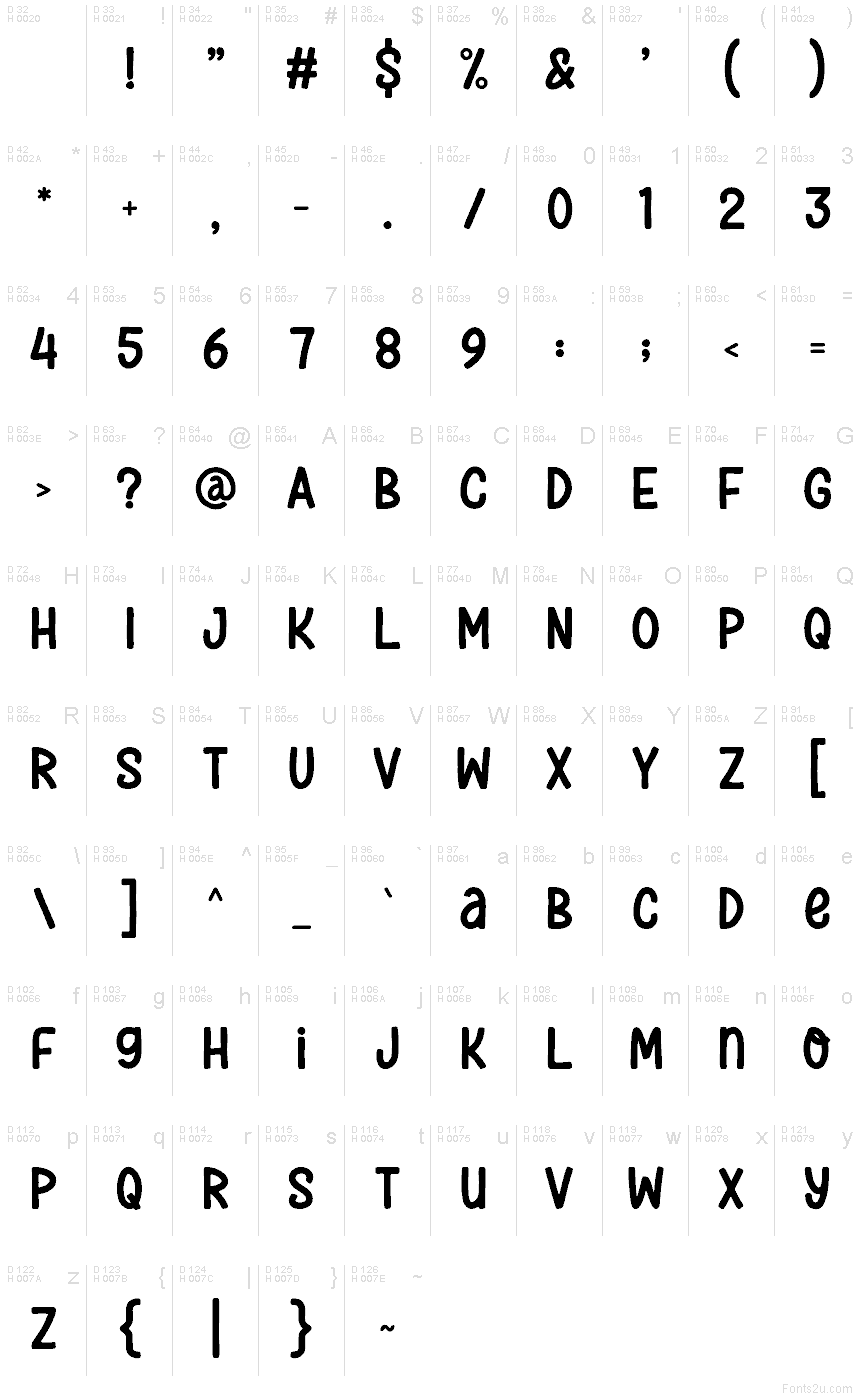
BOOGIELA
Boogiela font designed by Gilang Ternadho is a display typeface with cartoon features reminiscent of timeless animated shows. Its rounded connected letters are characterized by retro-inspired, casual designs and organic vibes. The type style’s playful quirky character truly makes it stand out in any visual design.
This free display font is fit for food brands, package labels, tags, social media post headlines, children-theme book covers or stories. Use it on website headers related to clothing or online shops focused on items for kids like toys and games. Grandparent-style storytelling can be converted into typographic books as well with this typeface.